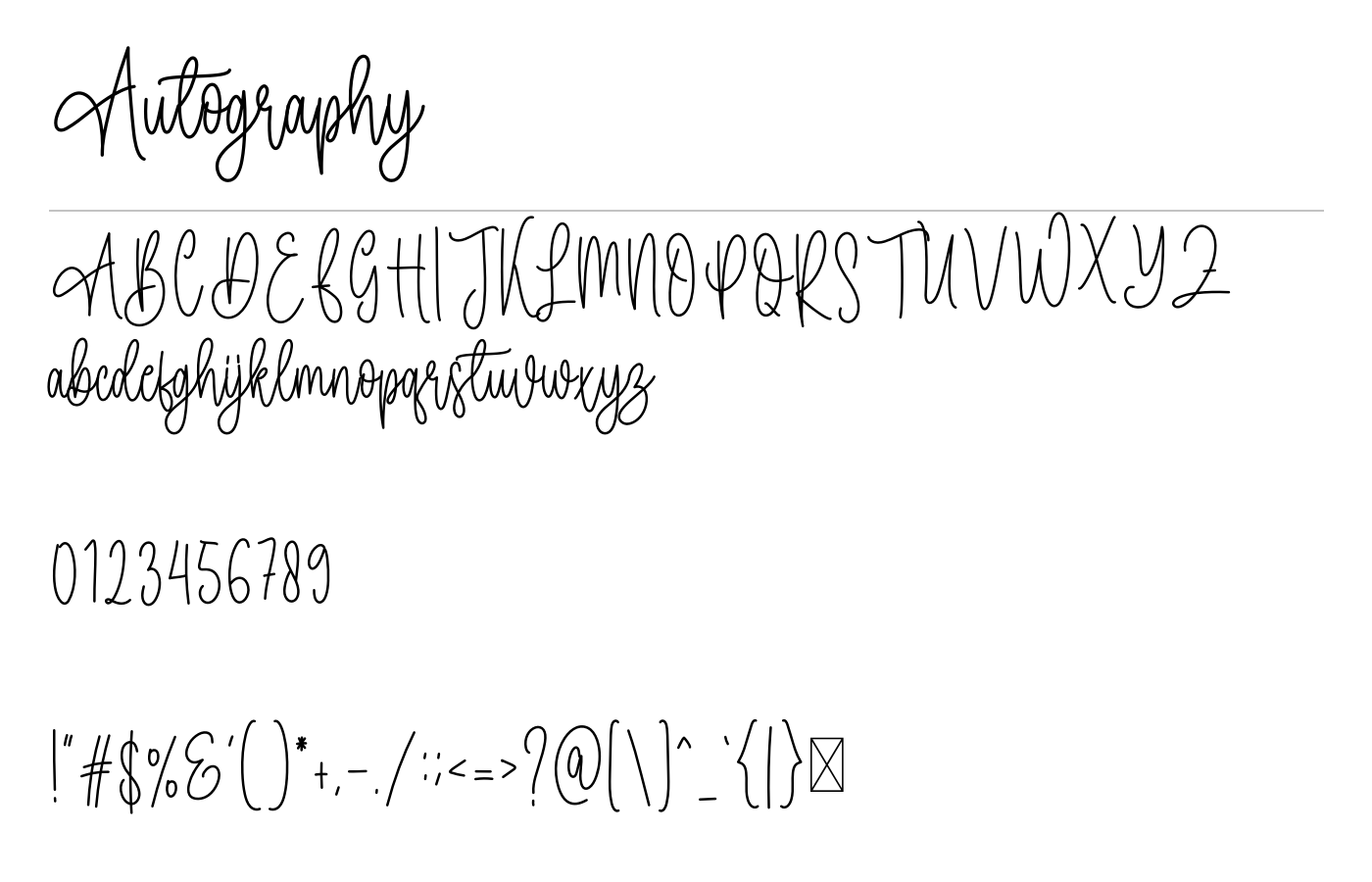
Autography is a delicate, handwritten script font with a slender, airy feel and smooth, flowing lines that evoke a personal, casual elegance. Its tall, narrow letterforms and playful loops make it perfect for creative projects that aim to convey warmth and individuality, such as invitations, branding, and stylish social media graphics. This font shines in designs seeking a modern yet approachable handwritten touch.
Autography Font
About Autography Font